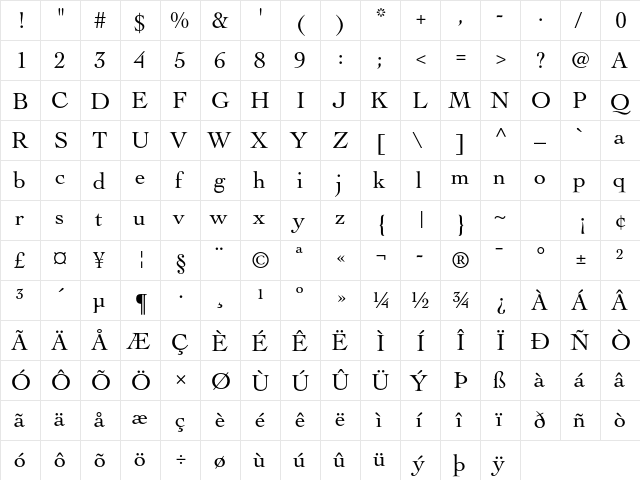
Cochin LT Std Roman
| Designer | Matthew Carter |
Design Context for Cochin LT Std Typeface
Cochin LT Std is a composed and adaptable typeface that performs quietly and consistently across a wide range of design contexts. Its slender proportions lend an understated elegance to any composition.